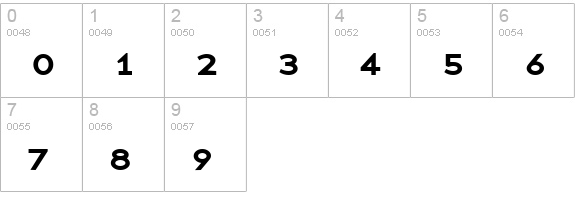
BaseNineSmallCaps Regular Font Details
BaseNineSmallCaps Regular is the standard, neutral variant in the BaseNineSmallCaps typeface family \xE2\x80\x94 well suited to general body text, paragraphs, and standard typographic work.
BaseNineSmallCaps Regular font is a sophisticated and elegant typeface that exudes a sense of style and professionalism. With its clean lines and classic design, this font is perfect for a wide range of projects, from branding and advertising to invitations and editorial design. The small caps feature adds a touch of refinement to any text, making it stand out and command attention. BaseNineSmallCaps Regular font is versatile and easy to read, making it a great choice for both print and digital media. Best of all, this font is available for free download at FontsMarket.com. Don't miss this opportunity to elevate your design projects with the timeless beauty of BaseNineSmallCaps Regular font.